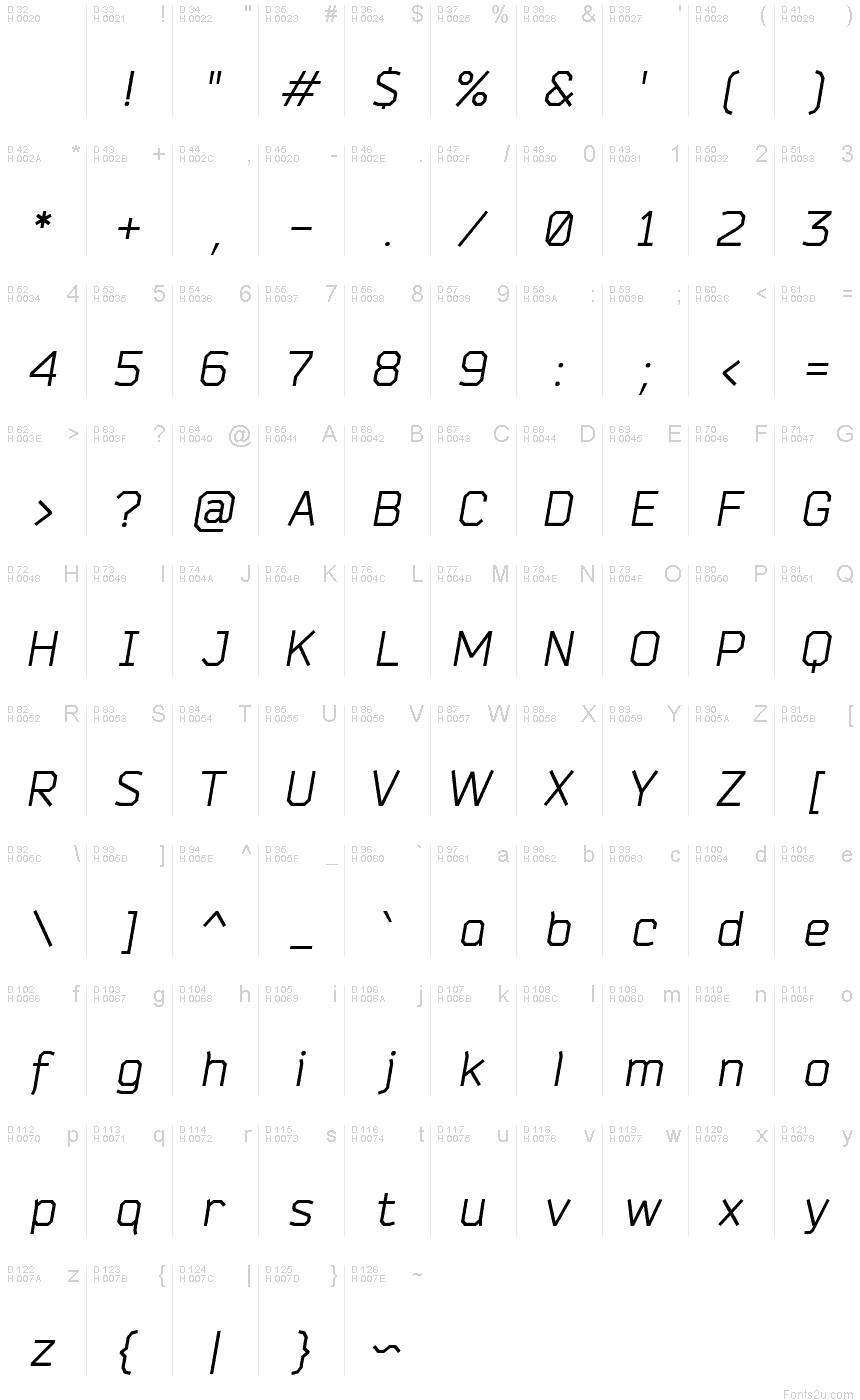
Bender Italic by Oleg Zhuravlev and Gladkikh Ivan is a free futuristic display font. Its forward lean and sharply cut curves give the letters a fast, engineered profile. Corners look deliberately faceted.
Game title graphics are its strongest use, since the angled construction suggests machinery and digital speed. The same forms suit science-fiction posters, esports branding, and technology packaging, where lettering can echo panels, screens, and industrial hardware. It will appeal most to designers working in gaming, electronic music, and speculative entertainment.